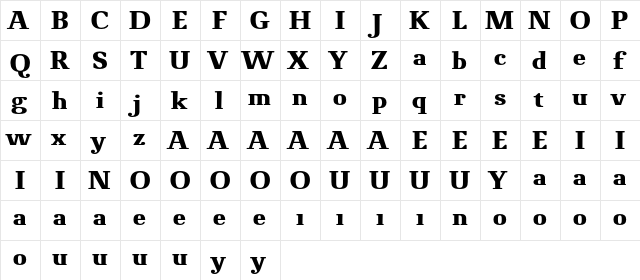
Novello Pro Bold
| Foundry | ingoFonts Ingo Zimmermann |
| Designer | Ingo Zimmermann |
Design Context for Novello Pro Typeface
Novello Pro takes a measured approach to typography — its balanced proportions and neutral character make it a reliable workhorse for both digital and print work. Its bold stroke weight gives it real presence on the page.